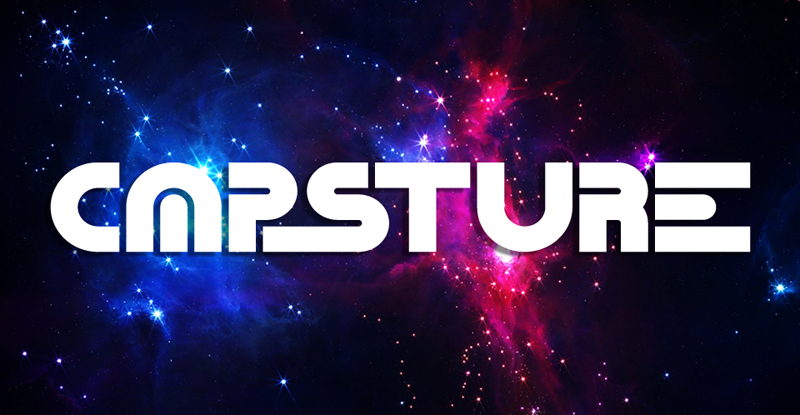
Capsture from EG is a free futuristic display font with broad geometric capitals and a dense architectural silhouette. Rounded arches meet hard rectangular cuts, creating an assertive mix of curves and right angles. Narrow joins and open internal gaps keep the forms visually active.
Posters are its clearest setting, especially for electronic music events or technology exhibitions. The lettering also suits game graphics and science-fiction merchandise. On magazine covers, its oversized shapes can function as title and graphic framework.